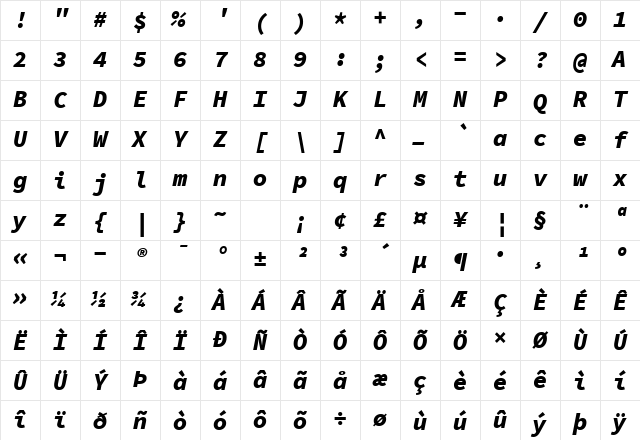
SauceCodePro Nerd Font Italic
Designer: Paul D. Hunt, Teo Tuominen
Complete SauceCodePro Nerd Font Italic glyph index. Displaying only characters natively supported by SauceCodePro Nerd Font Italic font.
Design Context for SauceCodePro Nerd Font
SauceCodePro Nerd Font uses fixed-width spacing throughout, giving it the structured, systematic character associated with coding environments and technical documentation. The slanted form adds forward momentum and visual energy.
Pro Tip: Use SauceCodePro Nerd Font with slightly increased line-height for extended reading - fixed-width spacing can feel dense in longer passages without extra breathing room.